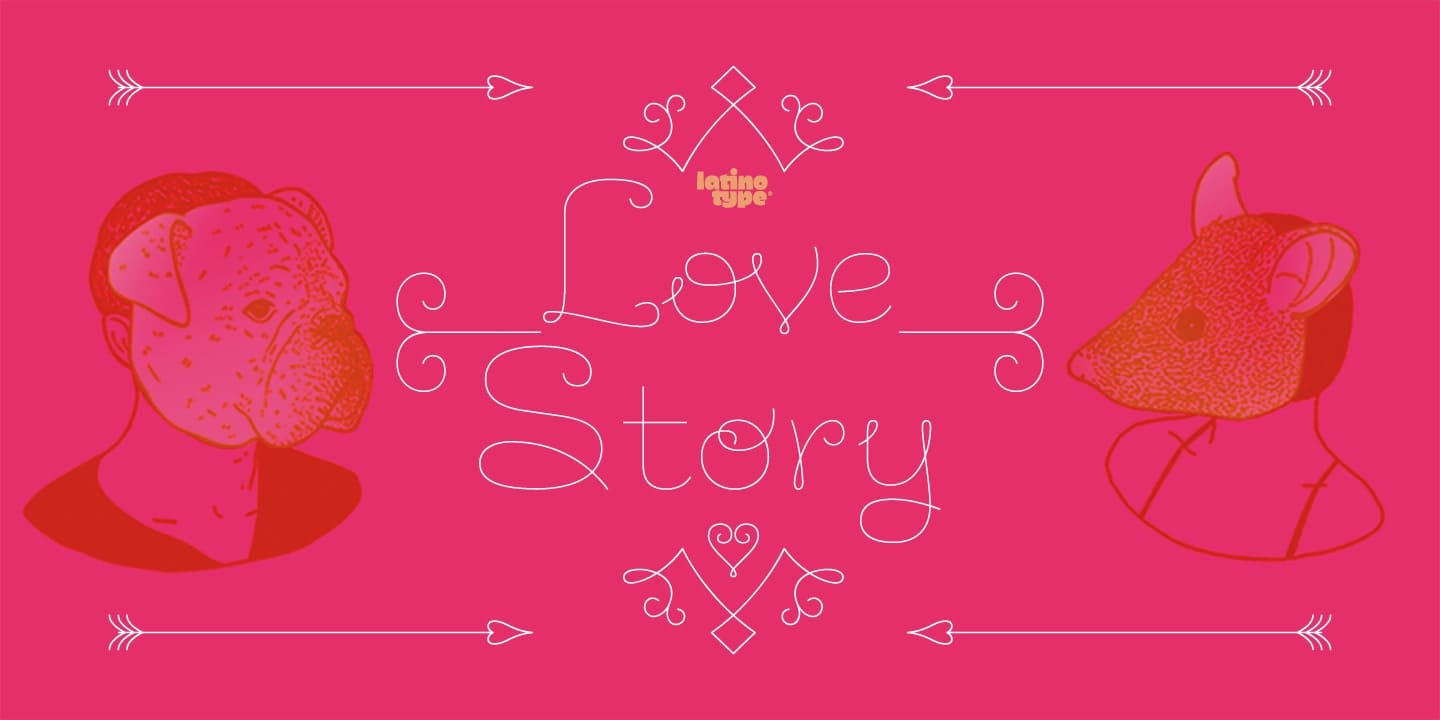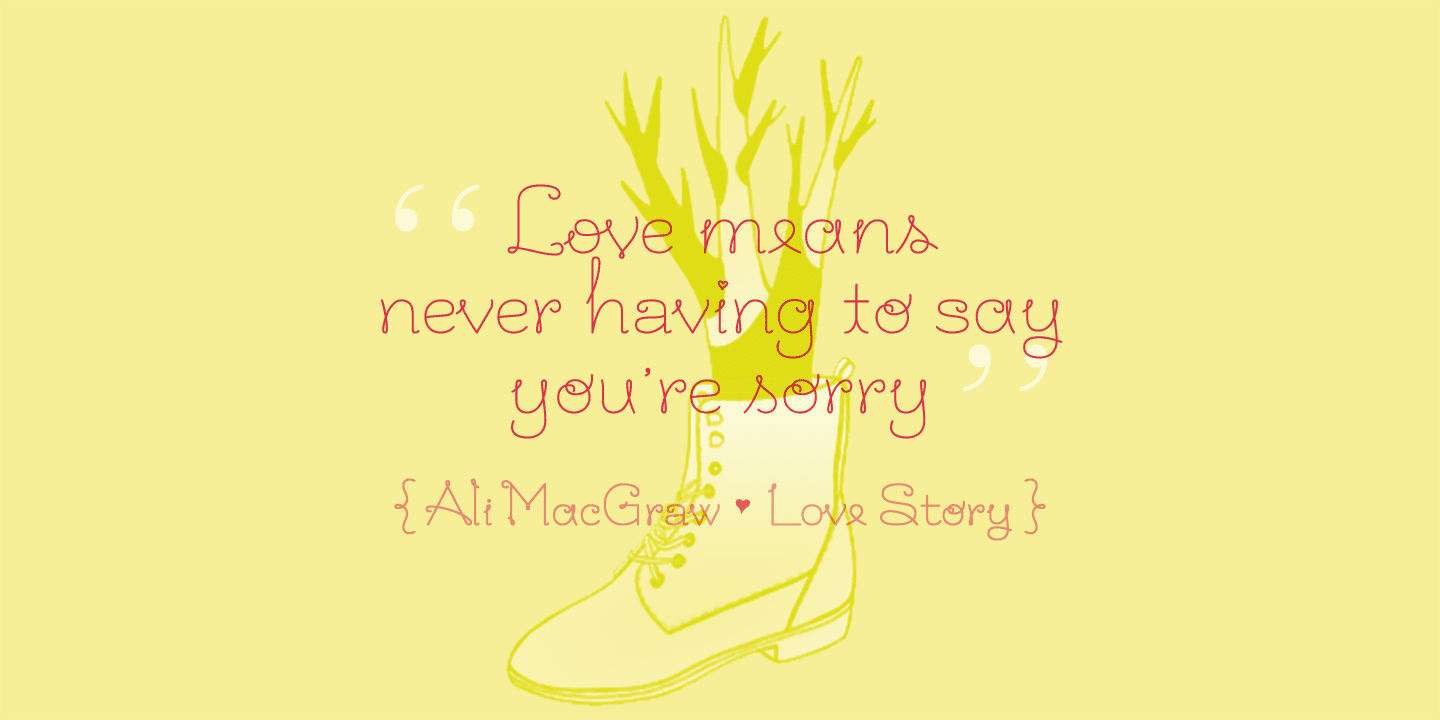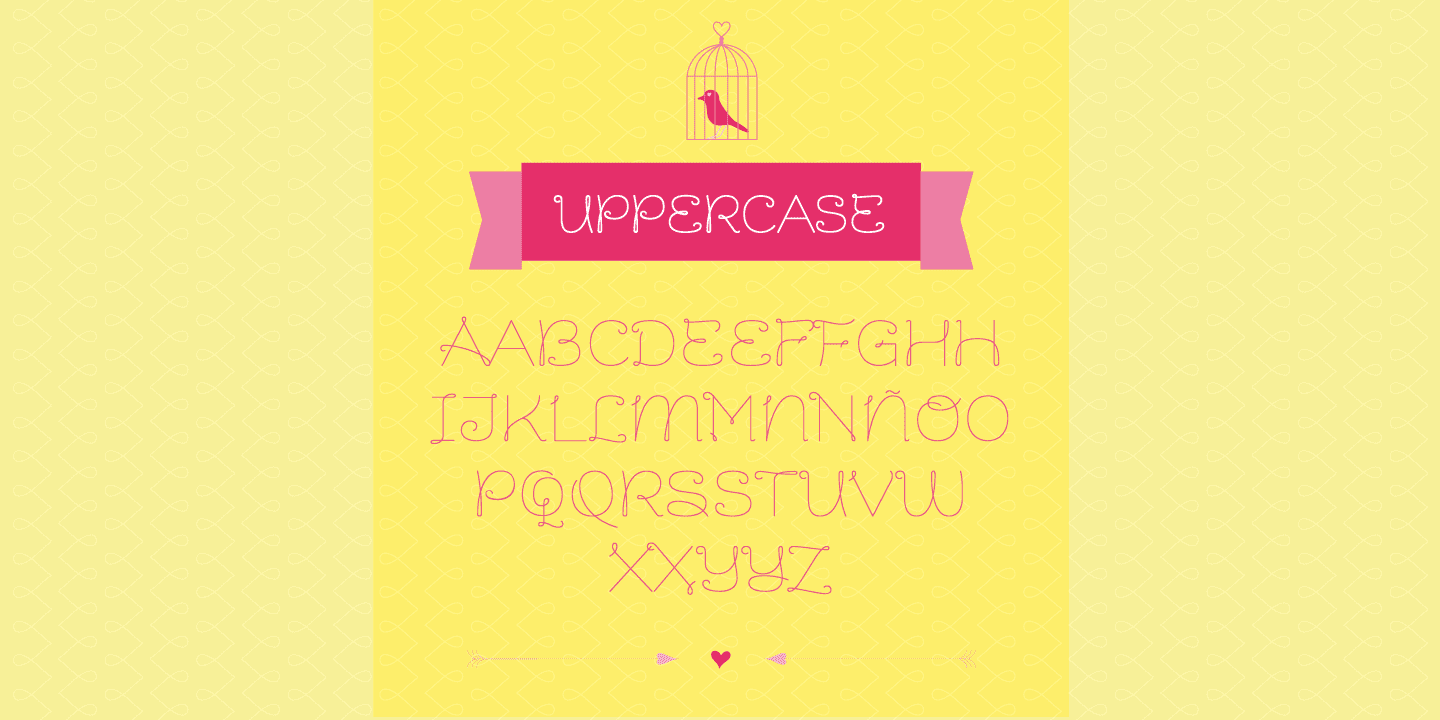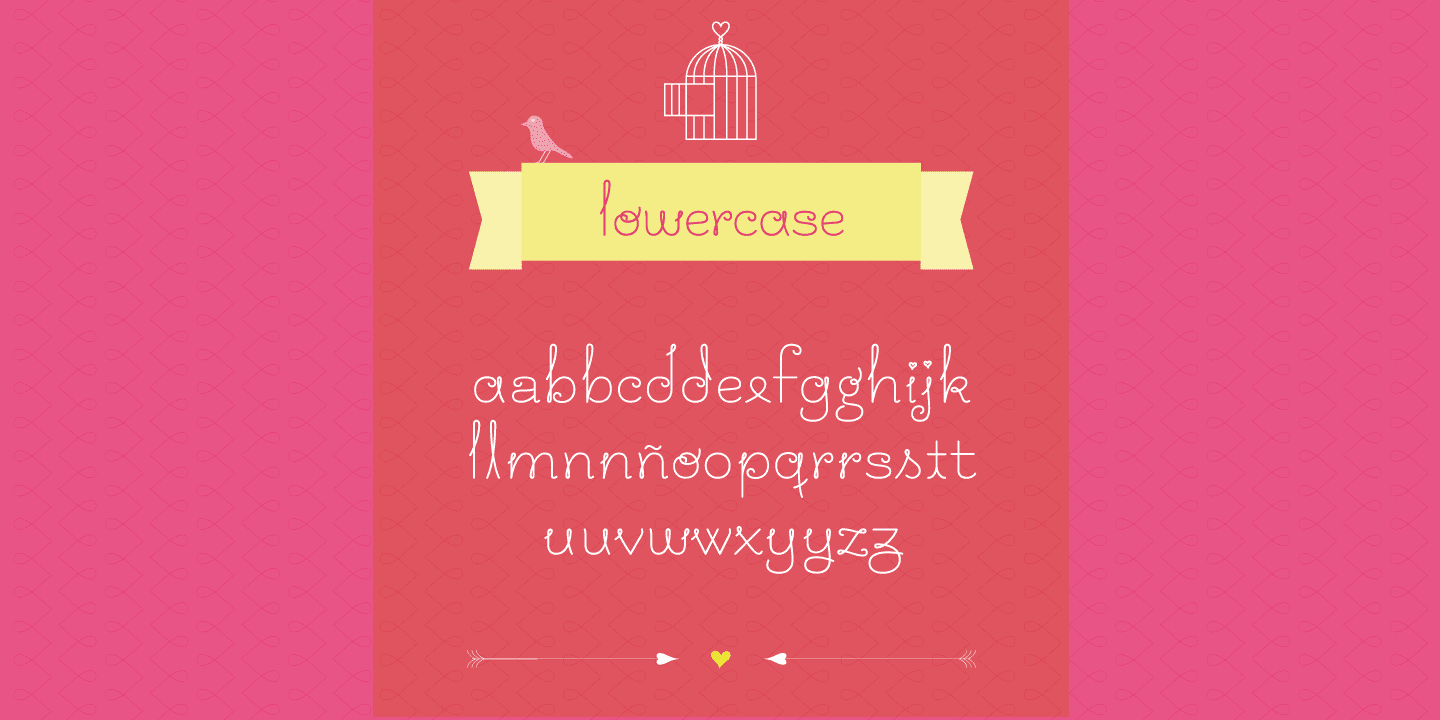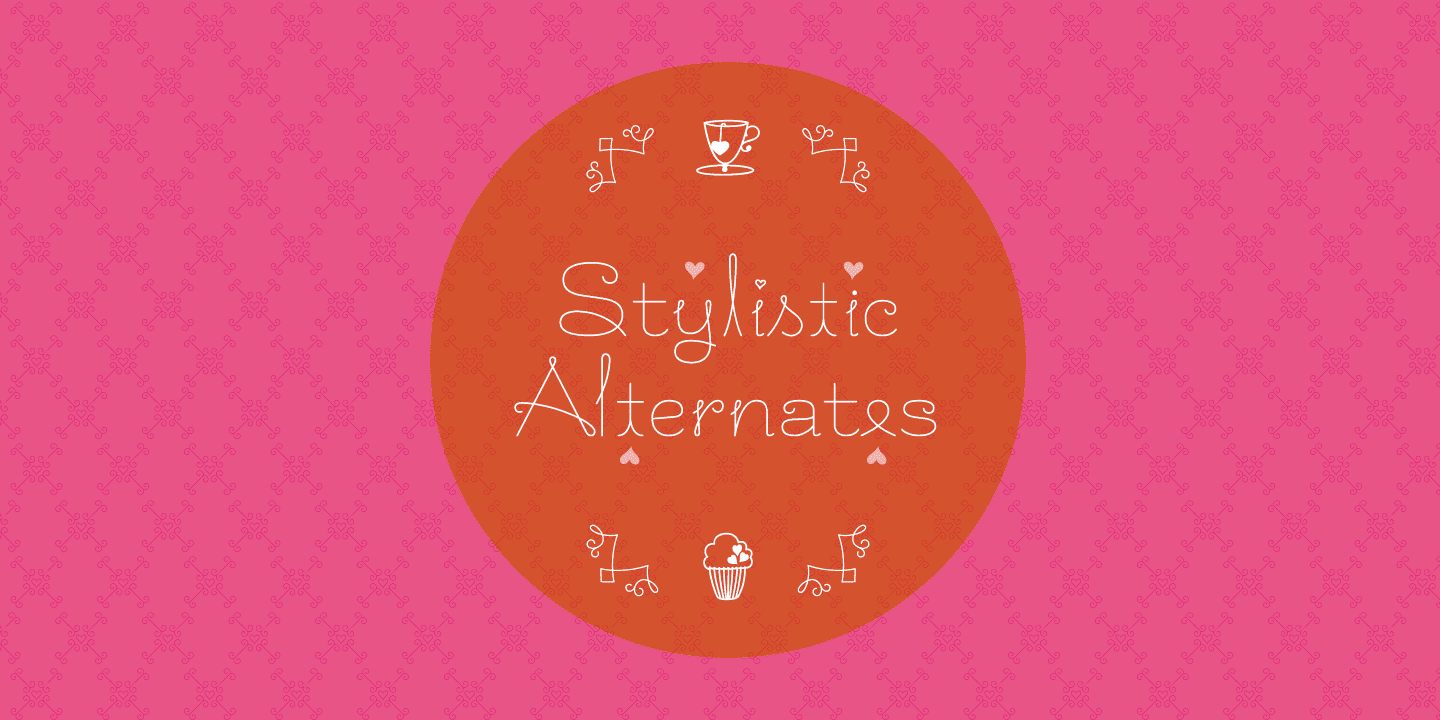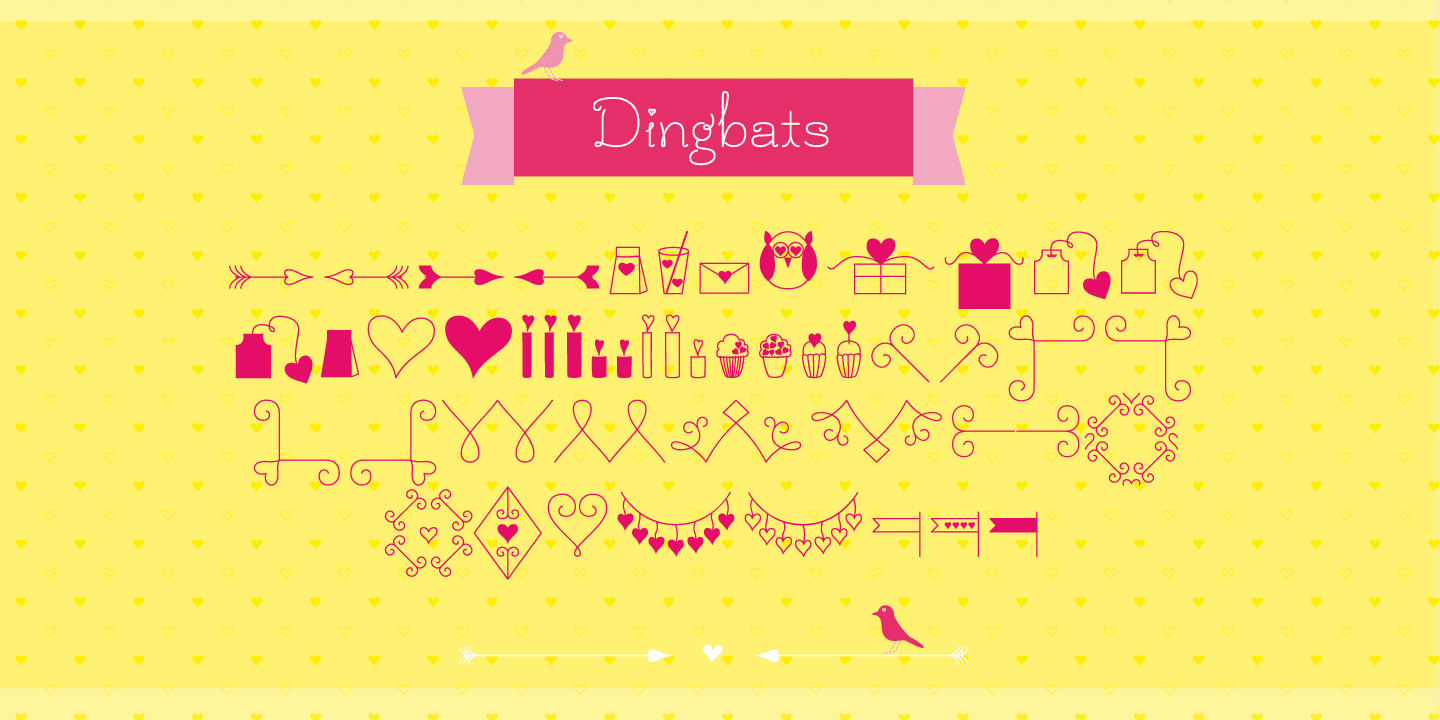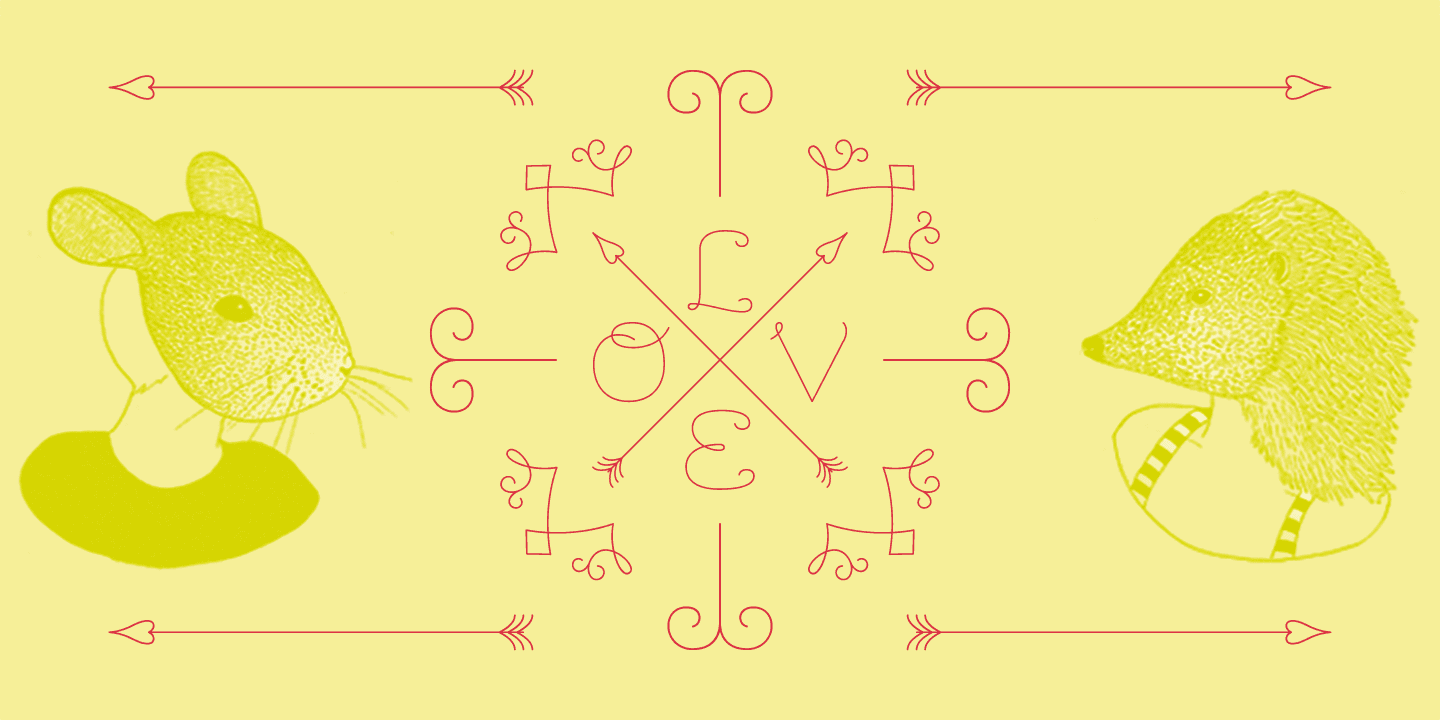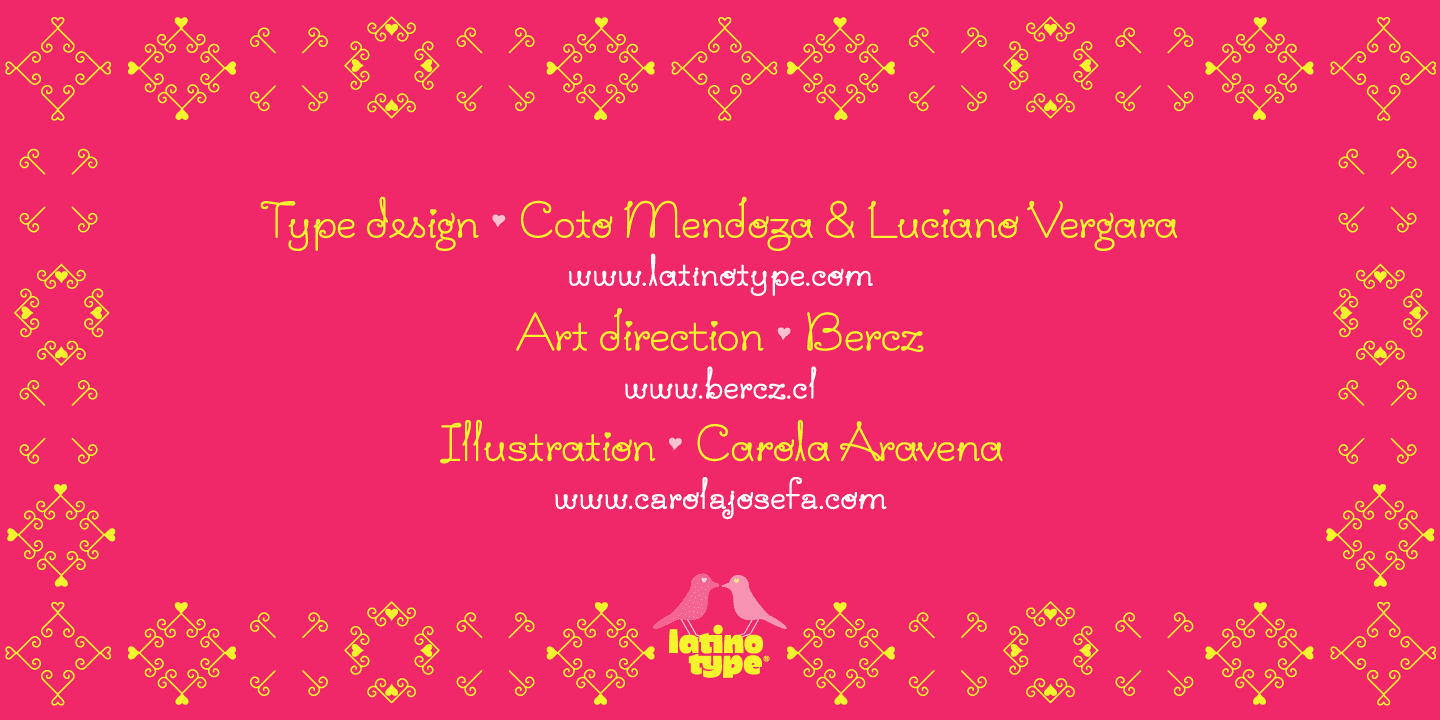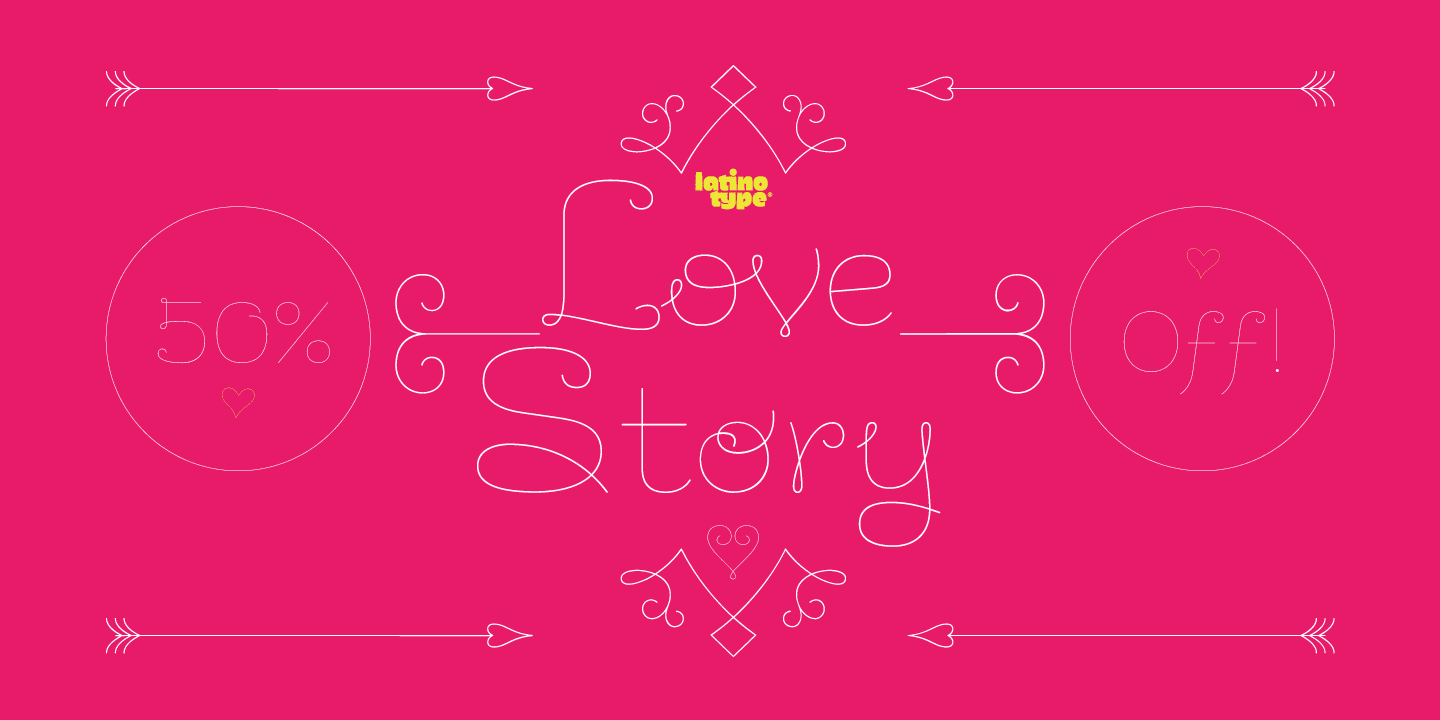
Vergara has designed many strong fonts with a focused interest in line, movement and geometry. LoveStory demonstrates his talent in this hairline font. It's delicate, continuos, and beautiful. Mendoza has had a focused interest in the world of ornaments for years and has integrated her passion of the ornament in LoveStory with a special set of dingbats, ornaments, and patterns.